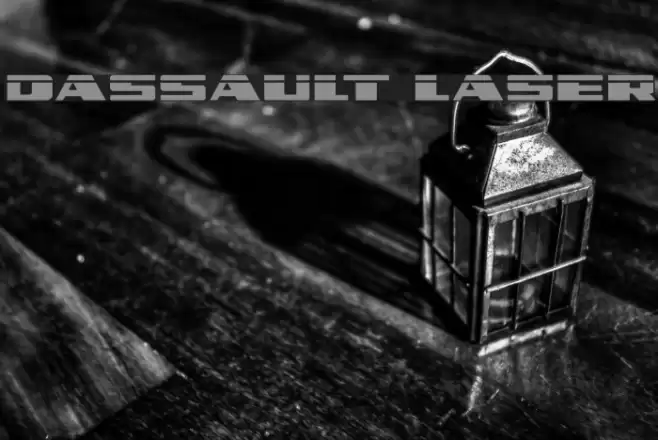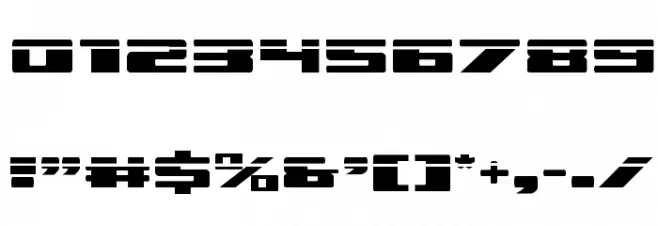
Dassault Laser Font
Dassault Laser Description
This font features a bold, futuristic design with a strong geometric influence. The characters are constructed with sharp angles and straight lines, giving it a mechanical and industrial feel. The uppercase letters are particularly striking, with a consistent height and width that create a uniform appearance. The numbers and special characters follow the same design principles, ensuring cohesion across all elements. This font's unique style makes it stand out, ideal for projects that require a modern and edgy look.
A bold, futuristic font with geometric and industrial design elements from Uncategorized fonts.
- Proposed Projects: Ideal for technology branding, sci-fi movie posters, video game titles, and modern advertising campaigns.
- Overall Style: Futuristic